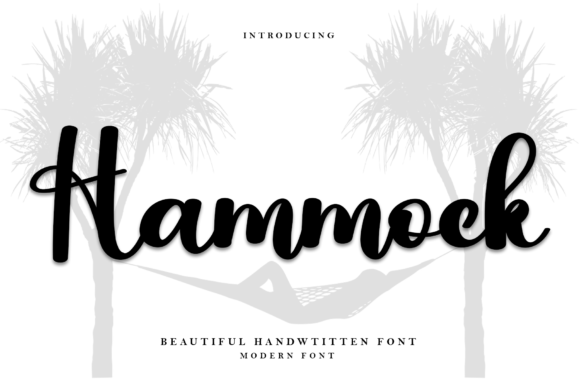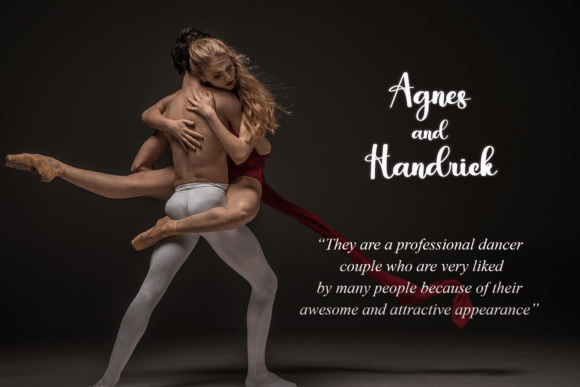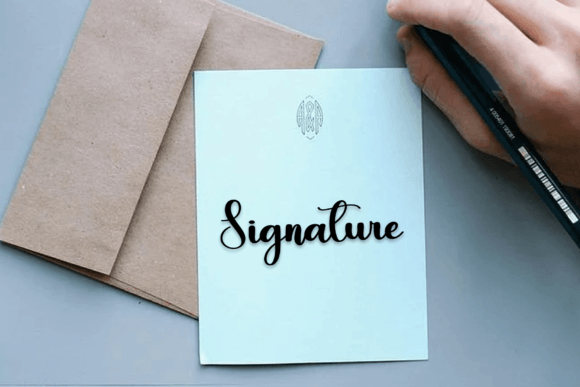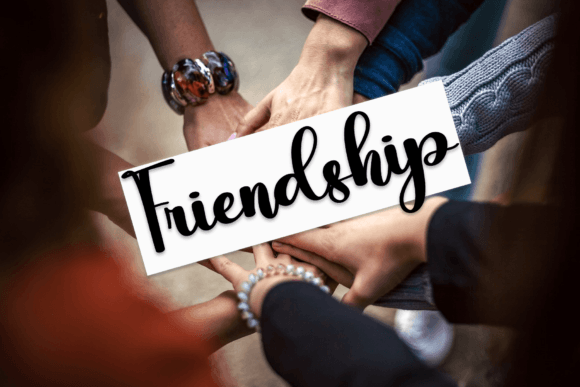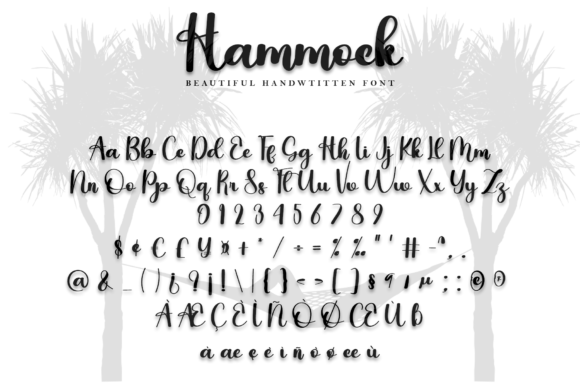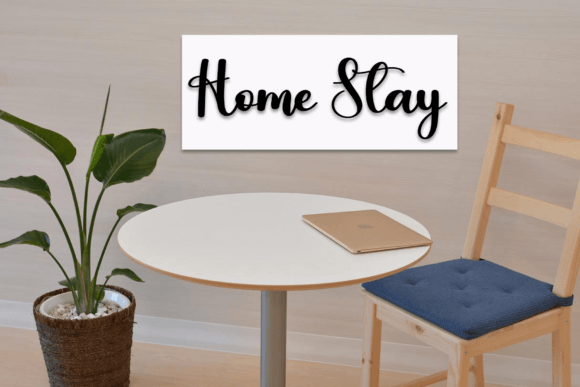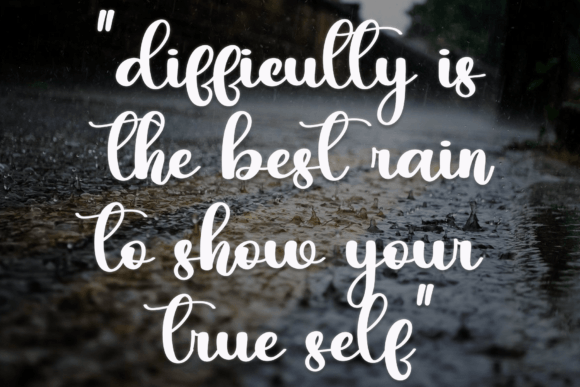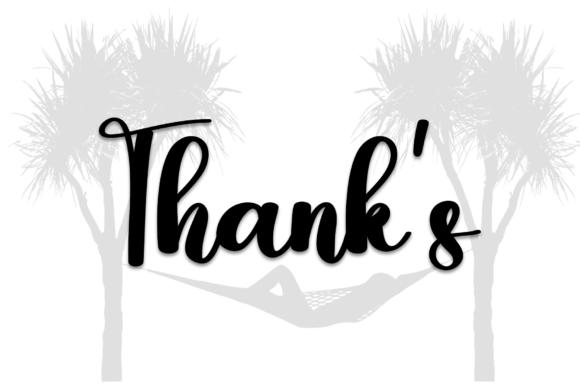
Hammock Font
“Hammock” sounds like a delicate handwritten font, thoughtfully crafted to infuse a cool and unique effect into your designs. Fonts with a delicate and handwritten style often bring a personalized and artistic touch to various design projects.
The careful crafting of “Hammock” suggests attention to detail, which can contribute to the font’s overall quality. Fonts with unique effects, as described, often provide designers with a tool to create visually interesting and memorable designs.
Consider adding “Hammock” to your titles, invitations, letters, or any other design element where a cool and unique effect is desired. Handwritten fonts can convey a sense of authenticity and creativity, making them versatile for a range of applications.
Explore the impact of “Hammock” on your creative projects and enjoy the opportunity to make your designs outstanding with its cool and unique qualities. Fonts like “Hammock” can play a crucial role in enhancing the visual appeal and distinctiveness of your work.